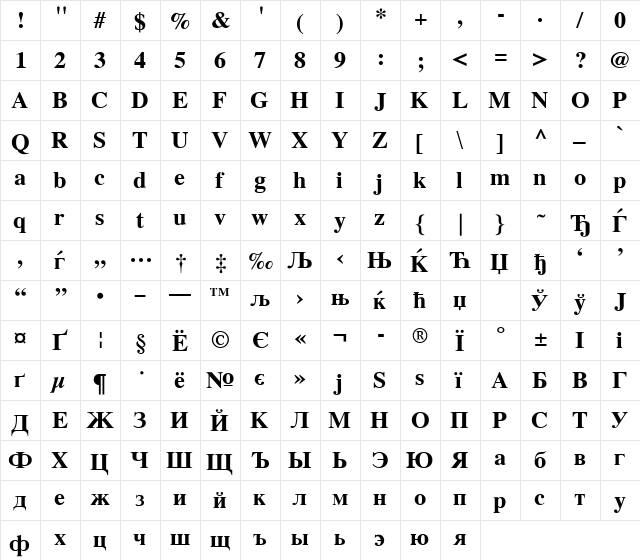
VremyaFWF Bold
Design Context for VremyaFWF Typeface
VremyaFWF is a composed and adaptable typeface that performs quietly and consistently across a wide range of design contexts. The heavy weight commands attention and anchors typographic hierarchies.